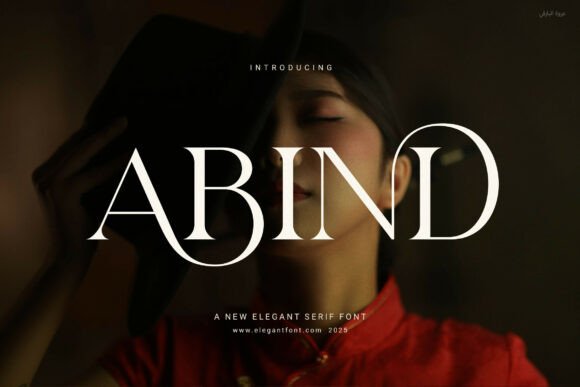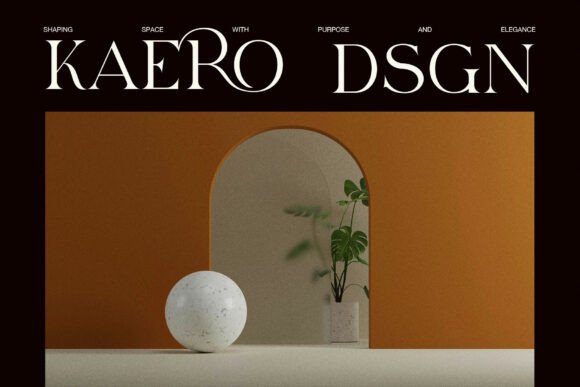
Abind Font
Abind Elegant Serif Font combines timeless style with modern clarity. This typeface features graceful curves and balanced proportions that give your designs a sophisticated, professional look. Each character flows smoothly, offering a clean and confident aesthetic without feeling stiff or rigid.
Rather than relying solely on appearance, Abind supports your creative process with functional ligatures and refined shapes. These design touches enhance readability while adding subtle flair to your compositions. Whether you’re designing logos or working on print layouts, this font ensures your visuals stand out.
You can confidently use Abind in a wide variety of projects. It fits beautifully into branding, packaging, advertising, and editorial work. Additionally, it’s perfect for fashion lookbooks, product labels, websites, invitations, and more. Because of its adaptability, you can maintain a consistent brand tone across digital and print media.
Use Abind when you want your designs to feel elegant yet accessible. Its sleek style works well across industries—from luxury fashion to creative services. Unlike more complex fonts, Abind delivers a modern and minimal look that complements your message, rather than distracting from it.